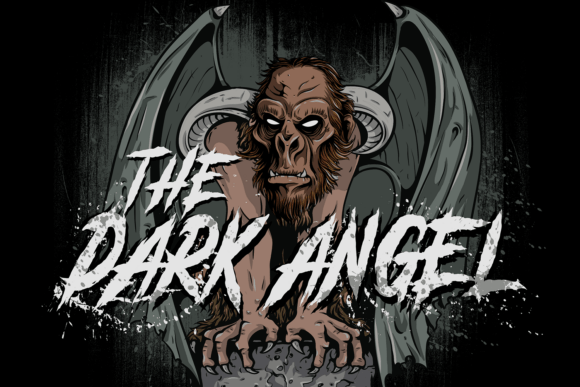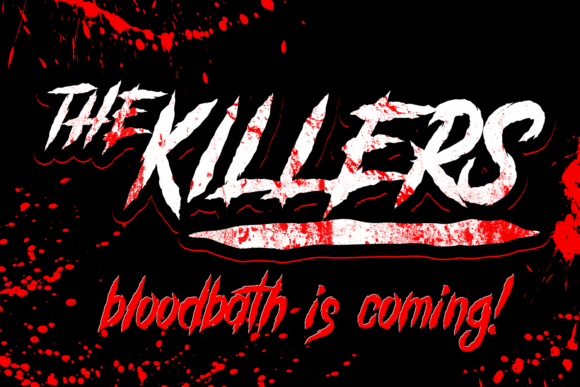
Introduction to Grind and Death Font
Grind and Death is a high-energy brush typeface with rugged edges and expressive strokes.
It comes with uppercase and lowercase letters, making it perfect for edgy branding, grunge posters, music festival, cover albums, horror titles, and street-style designs Its hand-drawn texture gives your message power and movement.
Key Features of Grind and Death Font